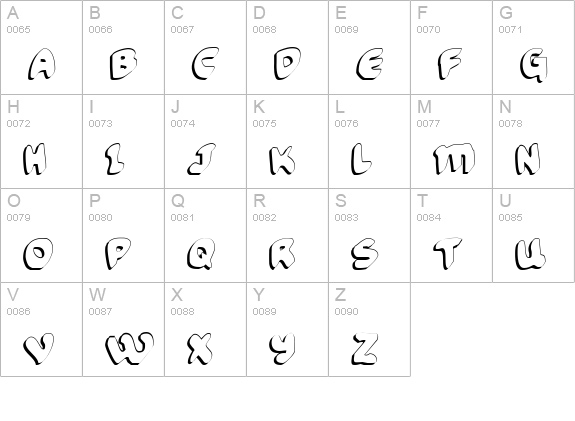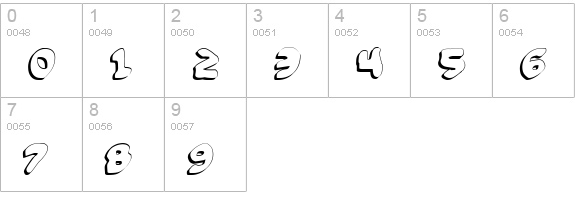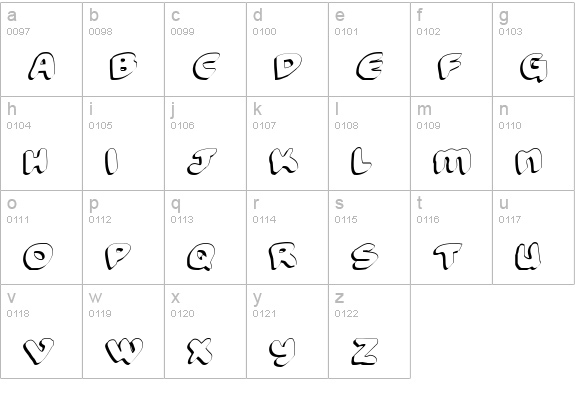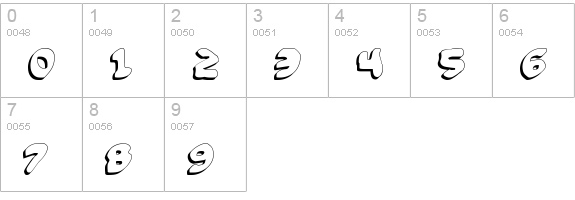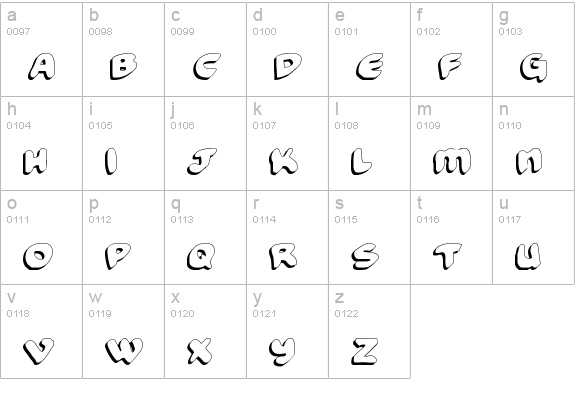
Introducing Funny Pages Shadow font, a playful and whimsical typeface that will bring a touch of humor to your projects. This unique font features quirky shadows that add depth and character to your text. Perfect for comic books, children's books, greeting cards, and more, Funny Pages Shadow font is sure to make your designs stand out. The best part? Funny Pages Shadow font is completely free to download at FontsMarket.com. With just a few clicks, you can add this fun and energetic font to your collection without spending a dime. Don't miss out on this fantastic opportunity to enhance your designs with the delightful charm of Funny Pages Shadow font. Download it today and let your creativity shine!